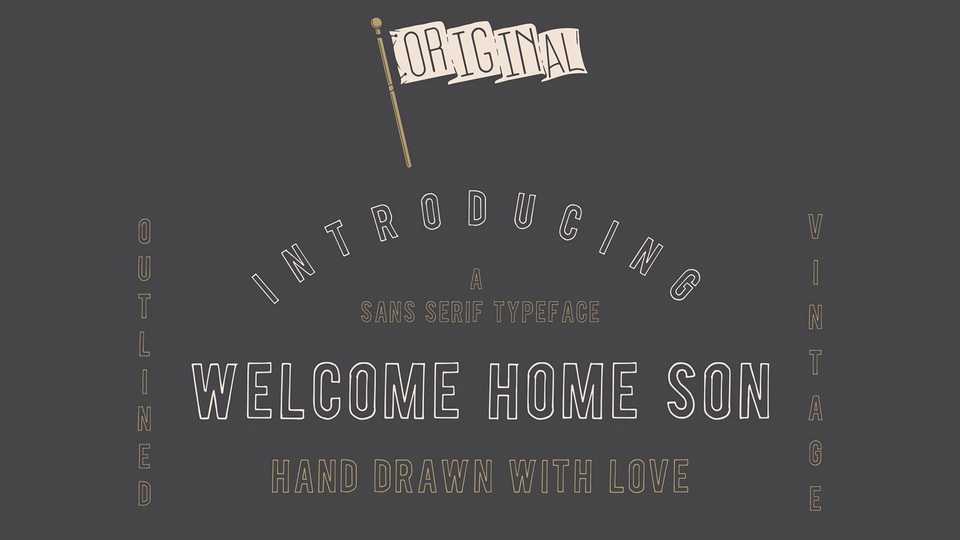
Download Welcome Home Son font, an outlined hand drawn display serif typeface inspired by vintage lettering. The font is great for posters, menus, badges and other vintage projects.